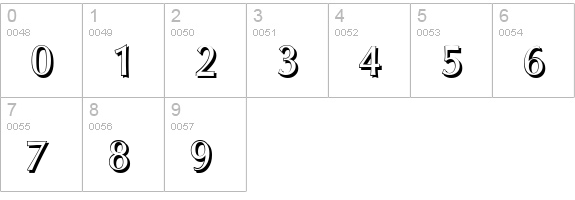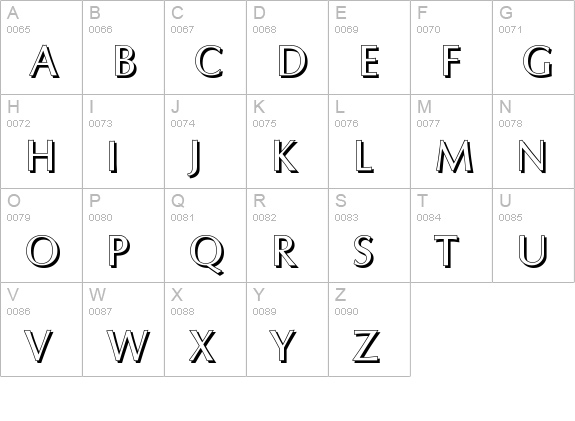
ColumbiaShadow-Regular Font Details
ColumbiaShadow-Regular is the standard, neutral variant in the ColumbiaShadow typeface family \xE2\x80\x94 well suited to general body text, paragraphs, and standard typographic work.
ColumbiaShadow-Regular is a versatile and elegant font that exudes a timeless charm. With its unique shadow effect, this font adds a touch of sophistication to any design project. Whether you're creating invitations, posters, or branding materials, ColumbiaShadow-Regular is sure to make a statement. The clean lines and balanced proportions of ColumbiaShadow-Regular make it a perfect choice for both headings and body text. Its versatility allows for seamless integration into various design styles, from modern to vintage. This font is ideal for adding a touch of class and elegance to your projects. The best part? ColumbiaShadow-Regular is available for free download at FontsMarket.com. So go ahead and elevate your designs with this stunning font today!